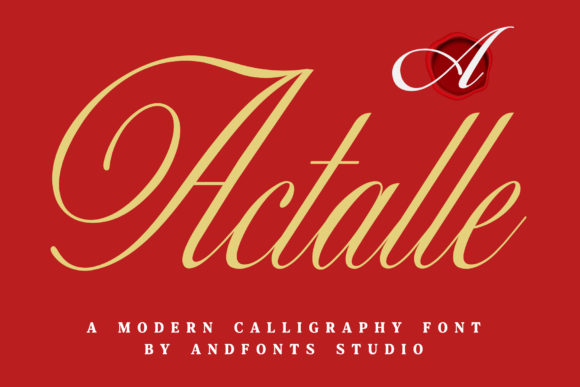
I still remember the frustration of working on a project, hours spent crafting the perfect design, only to realize that the font I chose wasn’t quite right. The client wanted something elegant, something that would make their brand stand out, but I just couldn’t seem to find it. That was until I stumbled upon Actalle, a beautiful calligraphy font that effortlessly blends the grace of traditional script with a modern touch.
Meet Actalle: A Calligraphy Font Like No Other
Actalle is more than just a font – it’s a work of art. Its delicate strokes and fluid lines capture the timeless charm of classic calligraphy, adding a touch of sophistication to any design project. Whether you’re a designer, crafter, or creative hobbyist, Actalle is the perfect choice for anyone looking to elevate their typography game.
What I Love About Actalle
- ✨ Elegant and sophisticated design that’s perfect for high-end brands
- 💫 Beautifully crafted with attention to detail
- 🎨 Versatile and can be used for a variety of design projects, from logos to invitations
While Actalle is an amazing font, there are a few things to keep in mind. 🤔 For example, some users may find that the font can be a bit finicky when it comes to kerning, so be sure to adjust as needed. ⚠️ Additionally, Actalle may not be the best choice for body text, as it’s more suited for headlines and titles.
The Story Behind Actalle: Designer Inspiration
Actalle was created by a talented designer who wanted to bring a touch of classic elegance to modern design. Inspired by traditional calligraphy, Actalle’s designer spent countless hours perfecting the font’s delicate strokes and fluid lines. The result is a font that’s both timeless and modern, perfect for designers who want to add a touch of sophistication to their work.
| Font Name | Actalle Font |
| Author | andfonts |
Q: What makes Actalle unique?
A: Actalle’s unique blend of traditional calligraphy and modern design makes it stand out from other fonts.
Q: Is Actalle suitable for body text?
A: While Actalle is beautiful, it’s more suited for headlines and titles. For body text, you may want to choose a more legible font.